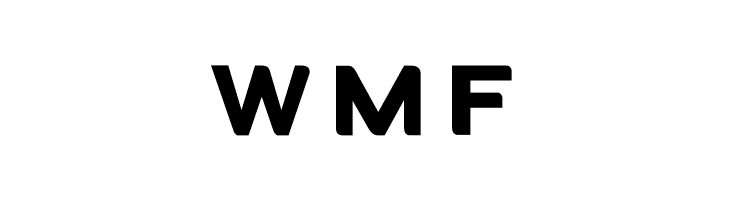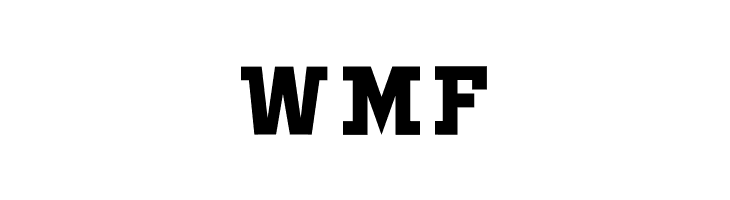
RAI Denmark Neo Font
A bold, geometric font with a modern, uniform design.
IBM Block Serif Font
A bold, block-serif font with strong geometric precision and uniform width.